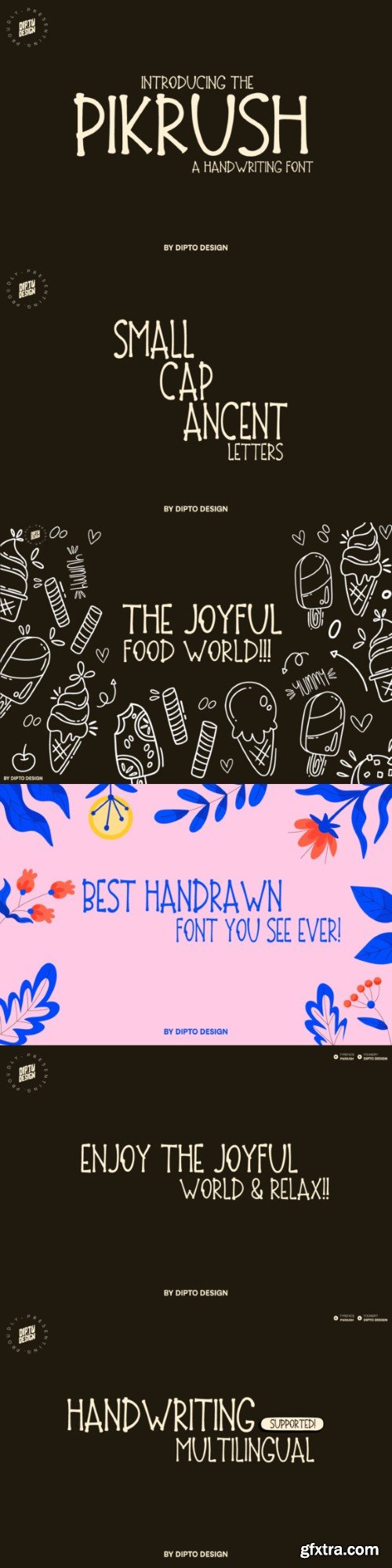
匹克鲁什字体
Introducing “Pikrush” – a vibrant handwriting font exuding spontaneity. With OTF, TTF, EOT, WOFF, WOFF2 files, and PNGs in a ZIP, it’s perfect for stylish branding. Embrace its dynamic energy and personalize your designs effortlessly! The font files (OTF, TTF, EOT, WOFF, WOFF2) provide versatility and compatibility across various platforms and applications, allowing you to use “Pikrush” with ease.